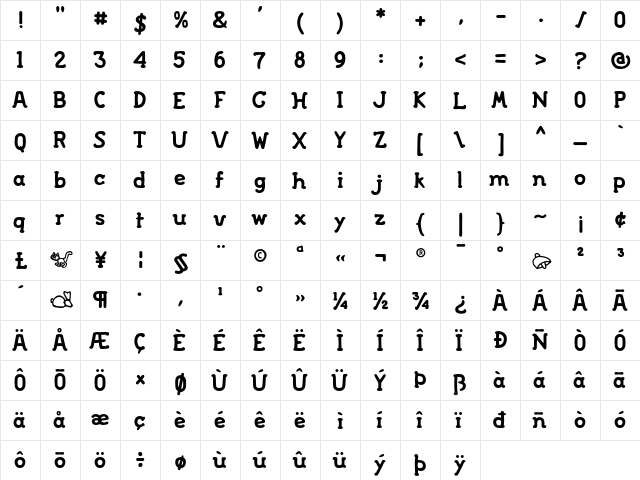
FontSoupCatalan Boiled Font Preview
FontSoupCatalan Boiled
Design Context for FontSoupCatalan Typeface
FontSoupCatalan takes a measured approach to typography — its balanced proportions and neutral character make it a reliable workhorse for both digital and print work.